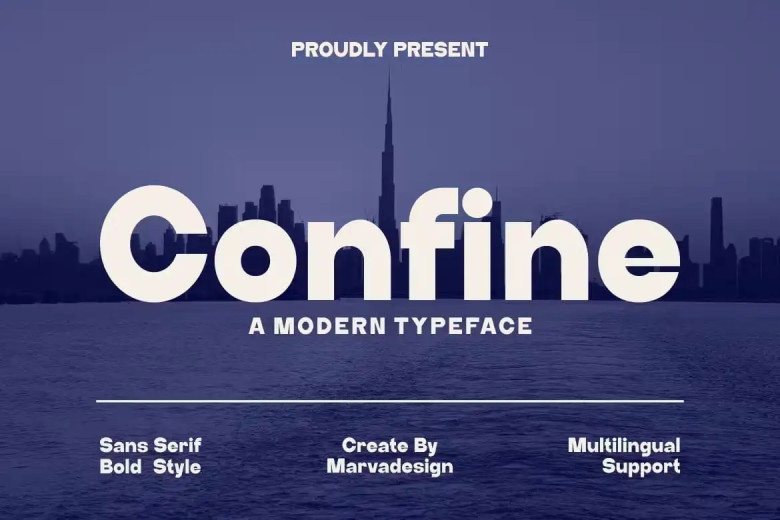
Confine Font
Confine is a contemporary sans serif font with authentic and bold display qualities, perfect for branding projects such as logo design, template creation and product design. Confine is unique in many different environments!
Confine Sans Serif Font